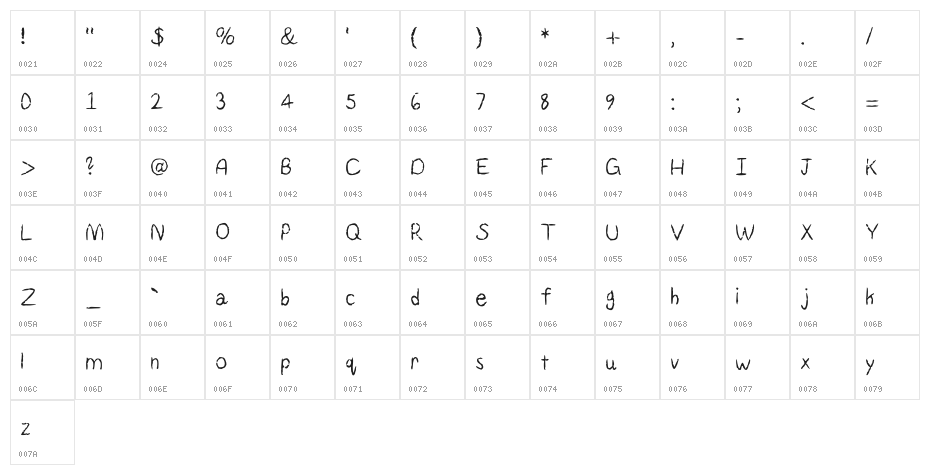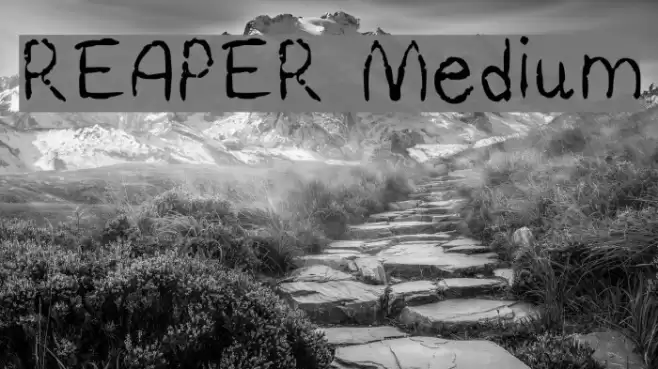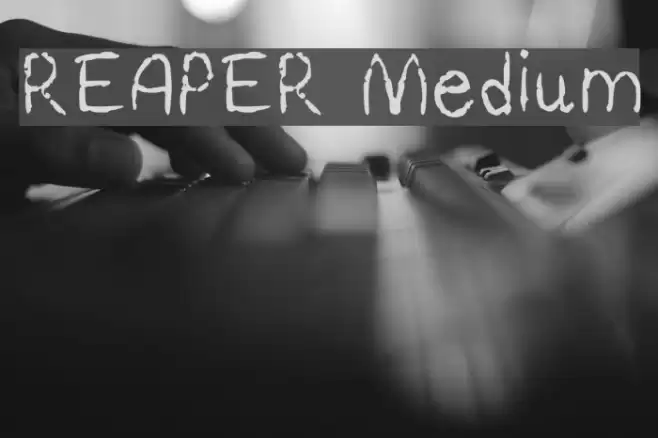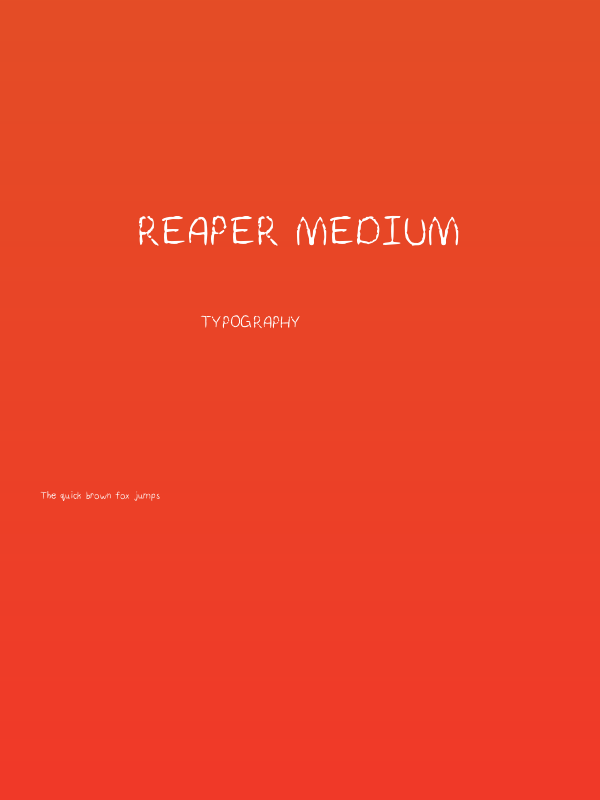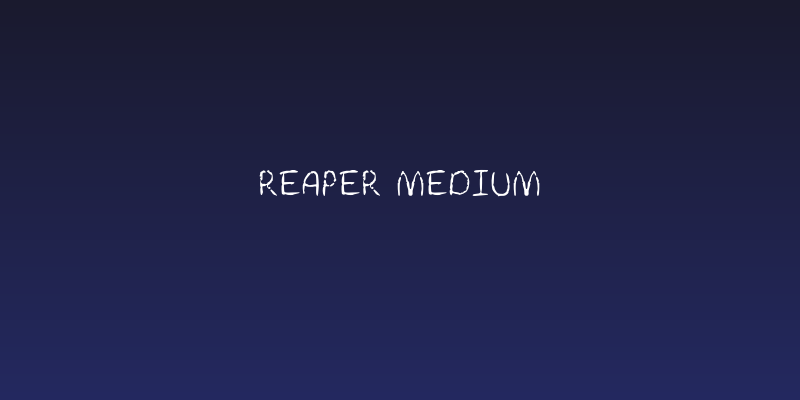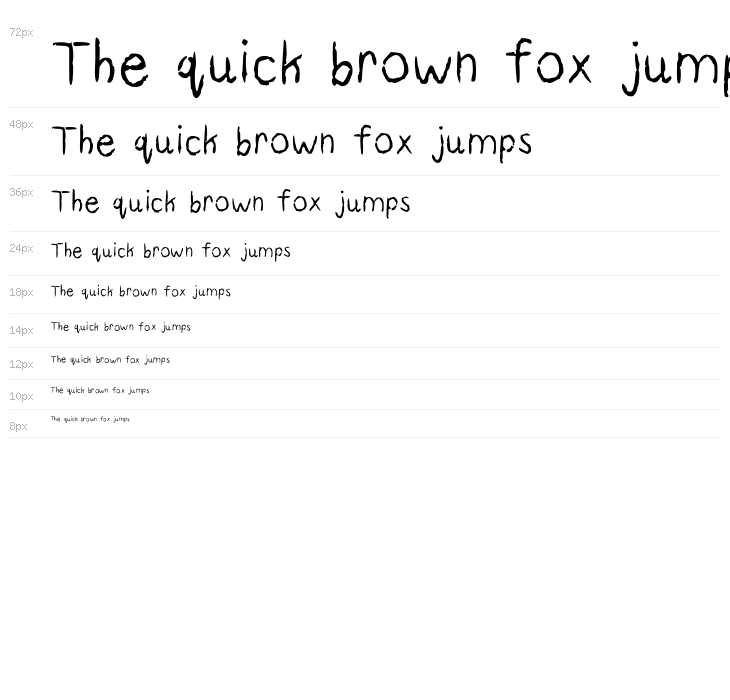
REAPER Medium Font
REAPER Medium Description
This font features a rugged, hand-drawn style with uneven strokes and a slightly distressed appearance. The characters have a casual, organic feel, reminiscent of handwriting with a brush or marker. The uppercase and lowercase letters maintain a consistent style, with the uppercase being slightly more pronounced. Numbers and special characters follow the same aesthetic, providing a cohesive look across all glyphs. The irregularities in the stroke widths add to its charm, making it suitable for projects that require a personal touch or an artistic flair.
| Proposed Projects | Ideal for artistic projects, posters, album covers, or any design needing a personal, handcrafted touch. |